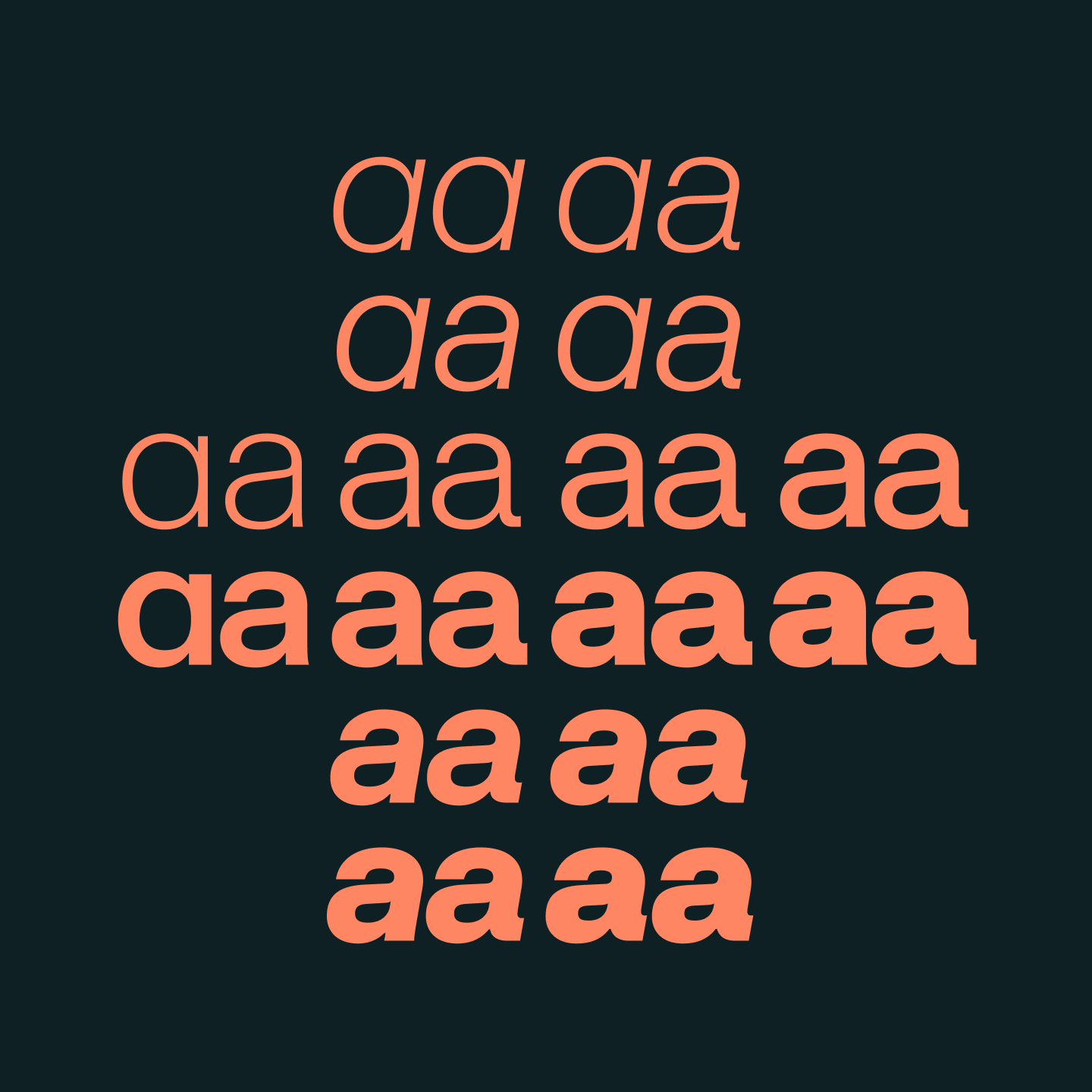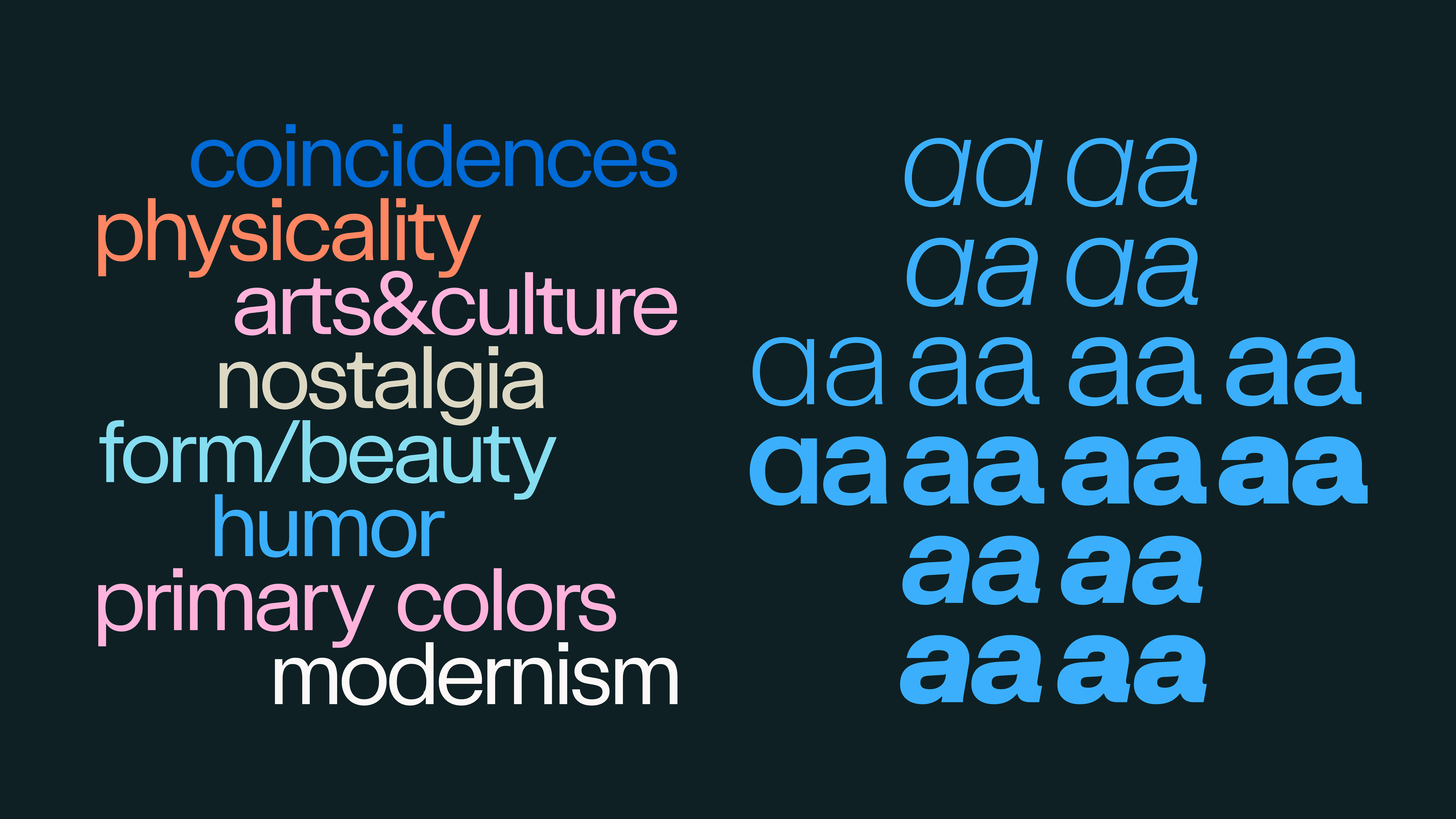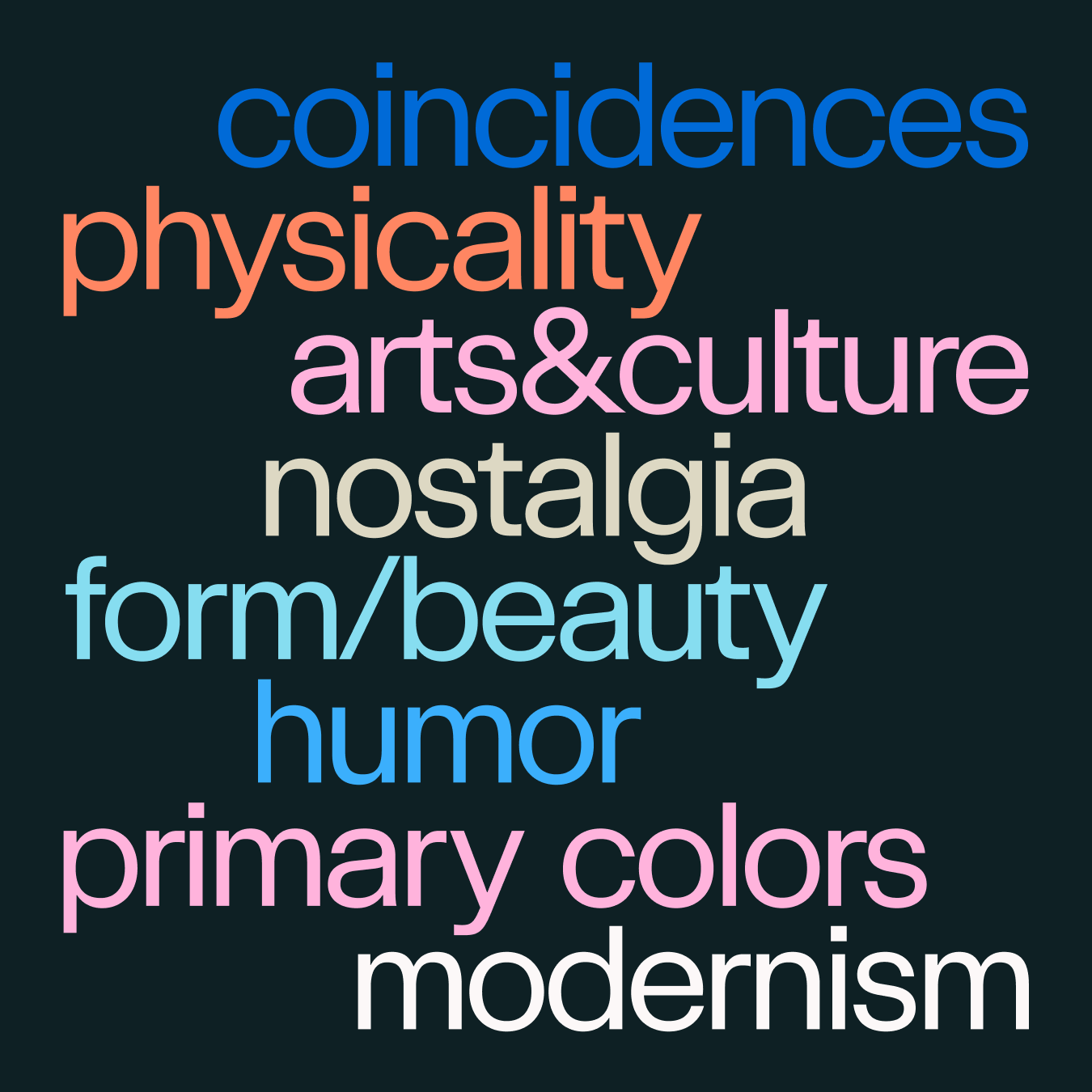
Crit is an interpretation of the early grotesque sans serif models through a contemporary lens, now expanded into a family of eight weights with matching italics. It takes inspiration from the straightforward charm of mid-century sans serifs, often swapped freely in phototype layouts where names like Helvetica and Akzidenz became almost interchangeable.
Crit builds on that tradition with clean shapes and careful spacing that give it a steady, balanced feel. As it gets bolder, the counters shift toward squarer forms to keep the letters clear without getting too heavy. Its tall x-height combined with shorter ascenders and descenders keeps the text looking tight but easy to read. Though rooted in function, Crit introduces quiet shifts in form that add character without distraction. Shapes open up, ligatures appear where they help, and heavier styles hold their shape without crowding. Drawn as a single, adaptable cut, Crit stays consistent across sizes and settings.